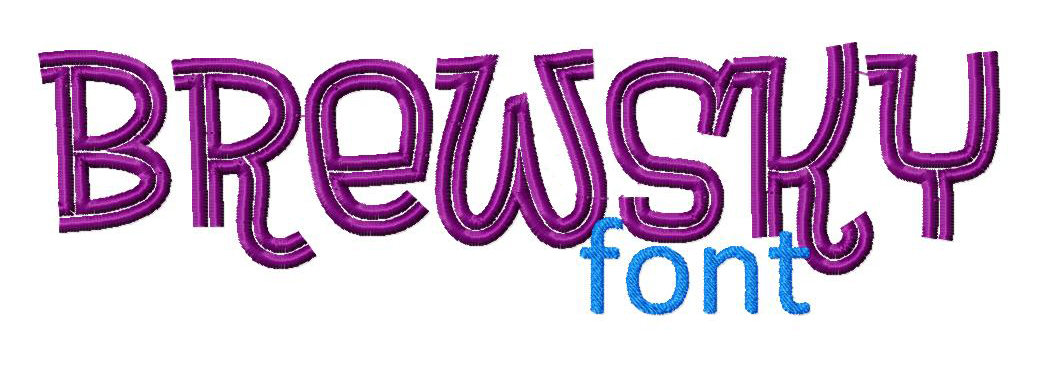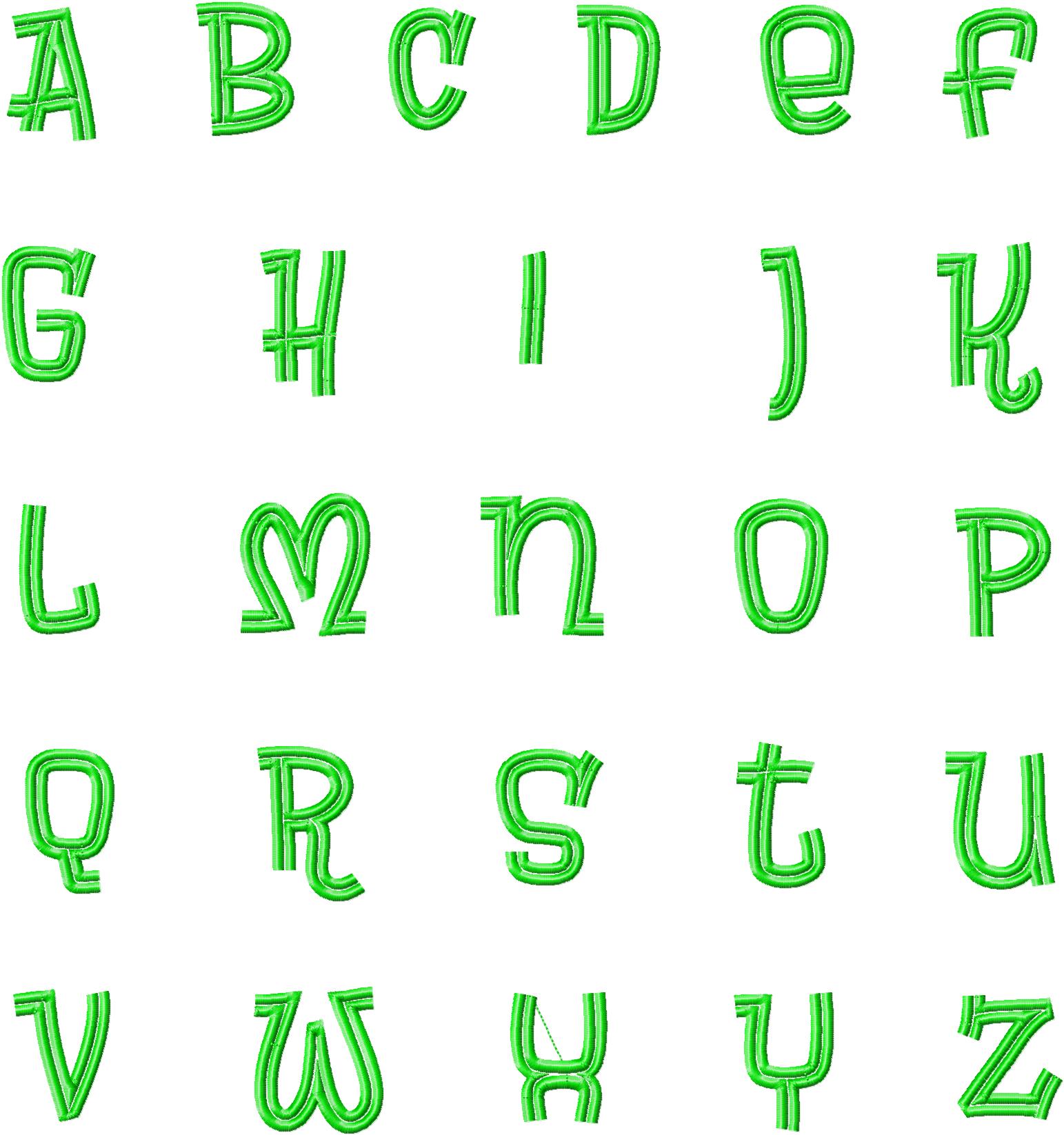
Stitch this awesome and fun font and fall in love with monogramming! Download the Brewsky Machine Embroidery Font Set for FREE for one day only.
The Brewsky Machine Embroidery Font Set includes all Uppercase Letters in all of the following sizes: 1" 2" & 3"